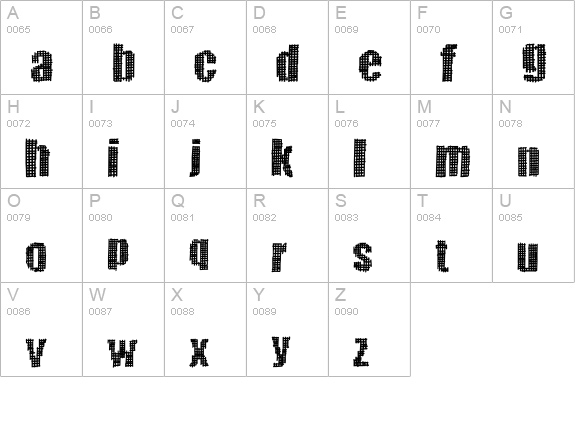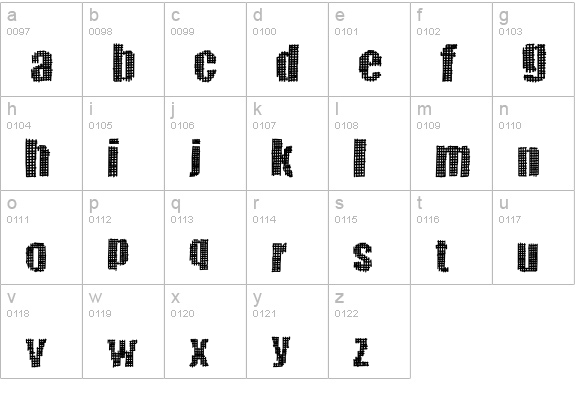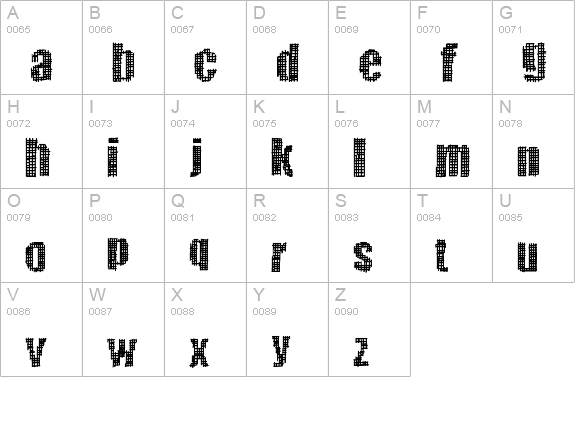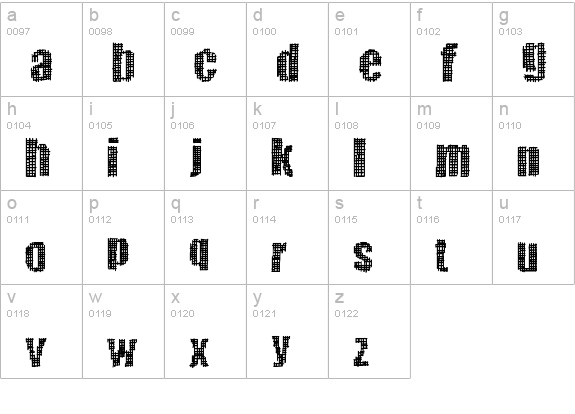
GreatVengeance Font Details
GreatVengeance font is a bold and striking typeface that commands attention with its powerful presence. Its sharp edges and dynamic design convey a sense of strength and determination, making it perfect for headlines, posters, and other display applications. The font's uppercase letters are especially impactful, adding a touch of drama to any project. What sets GreatVengeance font apart is that it is not only visually stunning but also completely free to use. Whether you're a designer looking to make a statement or a creative individual in search of a unique font for your personal projects, GreatVengeance font is an excellent choice. You can easily download this font for free at FontsMarket.com and unleash its full potential in your designs. Don't miss out on this opportunity to elevate your work with the bold and impactful GreatVengeance font.